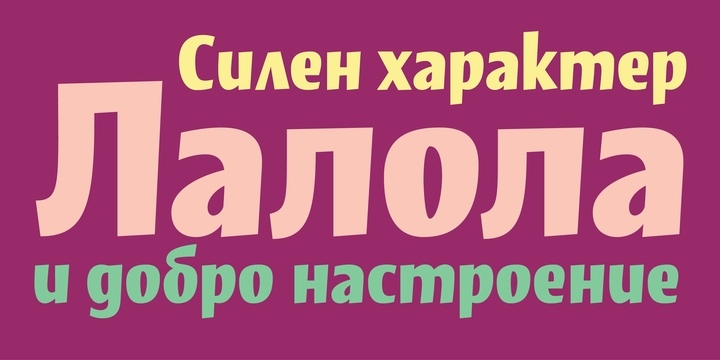
Lalola Cyrillic Font
Lalola Cyrillic Font is perfect for international branding projects, multilingual publications, Eastern European marketing campaigns, cultural event posters, travel industry materials, and diplomatic communications. Its comprehensive character set makes it ideal for global corporations, publishing houses, translation services, educational institutions, and any project requiring professional Cyrillic typography with contemporary appeal and cultural authenticity.
This font is exciting because it seamlessly bridges Western and Eastern typography traditions while maintaining exceptional readability across multiple Cyrillic alphabets including Russian, Bulgarian, Serbian, and Ukrainian scripts. The carefully balanced letterforms respect cultural nuances while offering modern functionality, making it an invaluable resource for designers working with diverse international markets and multilingual communications.
The Lalola Cyrillic Font family typically includes Regular, Bold, Light, and Italic variations with complete support for extended Cyrillic character sets, diacritical marks, and specialized punctuation. This comprehensive linguistic coverage ensures consistent typographic quality across various Slavic languages while maintaining visual harmony with Latin counterparts for seamless multilingual design applications.
Whether you're developing international brand guidelines, creating educational materials for language learning, or designing cultural exhibition graphics, Lalola Cyrillic Font Free Download delivers the linguistic precision and cultural sensitivity that global communication demands. Its versatile design works excellently in both digital and print environments, ensuring professional results across websites, mobile applications, books, and signage while respecting the rich typographic heritage of Cyrillic scripts.